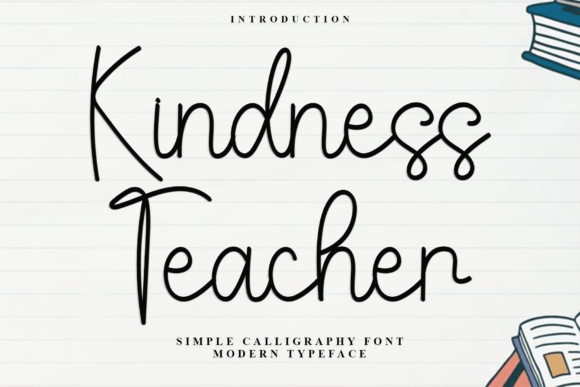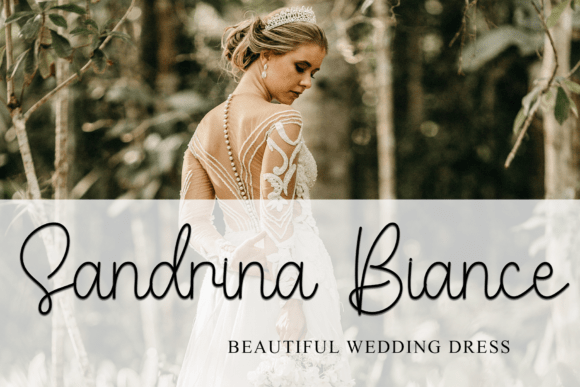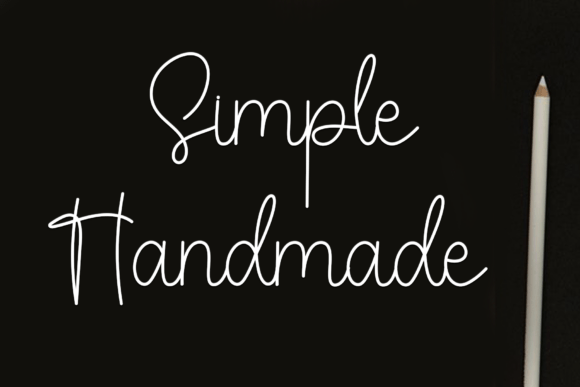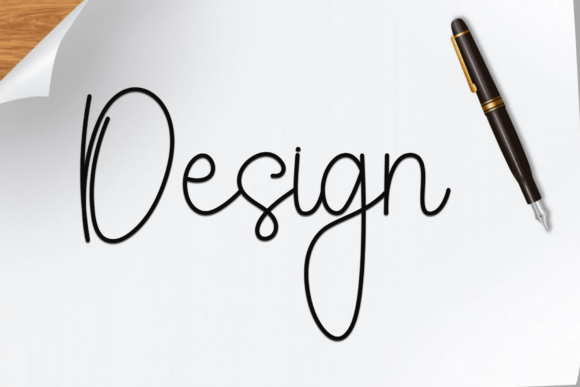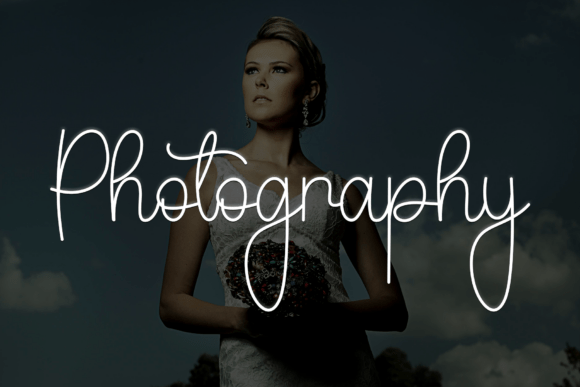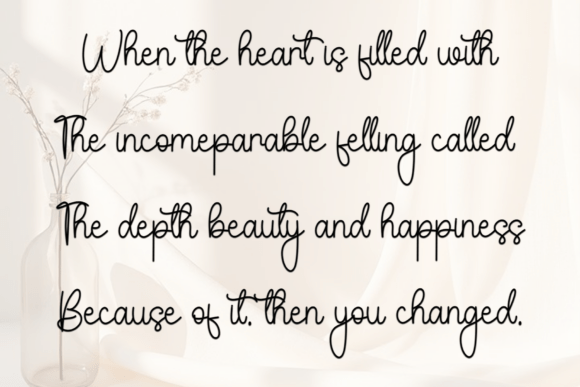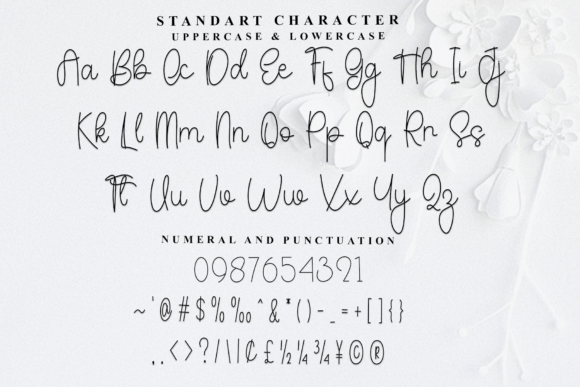
The Power of Kindness in Design
Do you remember that moment when you stumbled upon a font that perfectly captured the essence of your creative vision? For many designers, it’s that instant spark that ignites their imagination and sets their projects ablaze. The Kindness Teacher Font is one such discovery that can elevate your designs to a whole new level.
This charming, hand-drawn font exudes warmth and friendliness, making it perfect for personal projects, invitations, and social media graphics. With its round, playful strokes, the Kindness Teacher Font creates a relaxed and approachable feel that’s sure to connect with your audience. Whether you’re a seasoned designer or just starting out, this font is a valuable addition to your toolkit, offering a unique touch that sets your designs apart.
Kindness Teacher Font Features
- Font Family: Kindness Teacher Font is a unique, hand-drawn font designed to convey warmth and friendliness.
- Unique Characteristics: Features a playful, cursive design with subtle flourishes and rounded edges, perfect for creating a friendly and approachable atmosphere.
Kindness Teacher Font Review
Overall, I found the Kindness Teacher Font to be a lovely addition to any design project. Here’s a breakdown of its strengths and weaknesses.
- The font’s friendly and approachable nature makes it perfect for projects related to education, self-improvement, and personal growth.
- The Kindness Teacher Font has a clear and easy-to-read structure, making it suitable for body text and headings alike.
- The font’s rounded edges and subtle curves create a warm and inviting atmosphere, ideal for designs aimed at a younger audience.
- The font may feel too cutesy or childish for certain projects, such as professional or corporate designs.
- The Kindness Teacher Font lacks a bold weight, which might limit its versatility in situations where a strong emphasis is needed.
- The font’s design may not be suitable for projects that require a more formal or sophisticated tone.
Overall, the Kindness Teacher Font is a charming and endearing font that excels in certain niches. While it may have some limitations, it’s a great addition to any designer’s toolkit, especially for projects aimed at a younger or more personal audience.
Tips for Getting the Most Out of Kindness Teacher Font
To get the most out of Kindness Teacher Font, use it to create eye-catching headlines, titles, and quotes. The font’s unique design makes it perfect for creating visually appealing and inspiring content.
Experiment with different font sizes, colors, and combinations to create a unique look that suits your design style.
Kindness Teacher Font is perfect for:
- Education and teaching materials
- Inspiration and motivation quotes
- Wellness and self-improvement content
- Children’s educational materials and books
Alternatives to Kindness Teacher Font
Great Vibes Font is a beautiful, elegant script font suitable for projects that require a touch of sophistication and whimsy. It’s ideal for wedding invitations, greeting cards, and other personal projects where a unique, handwritten feel is desired.
Compared to Kindness Teacher Font, Great Vibes Font has a more refined and luxurious feel, making it perfect for high-end projects. While Kindness Teacher Font is more playful and childlike, Great Vibes Font exudes a sense of maturity and elegance.
Alex Brush Font is a modern, handwritten font that’s perfect for creating a sense of warmth and approachability. It’s ideal for projects that require a friendly, conversational tone, such as blog posts, social media graphics, and product packaging.
Compared to Kindness Teacher Font, Alex Brush Font has a more relaxed and casual feel, making it perfect for projects that require a sense of informality. While Kindness Teacher Font is more playful and educational, Alex Brush Font is more laid-back and approachable.